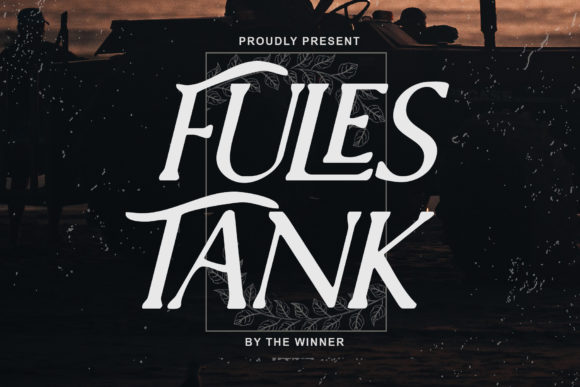
Meet Fules Tank, a stunning serif font family that exudes elegance and sophistication. Its graceful curves and sharp edges create a captivating visual harmony that will elevate your designs to new heights. As a top choice among resume fonts for business professionals, Fules Tank empowers you to make a striking first impression that leaves a lasting impact.
With Fules Tank, your words carry more weight and your messages shine brighter. Its carefully crafted letterforms project an air of authority and professionalism, making it the perfect choice for resumes, business cards, and other corporate materials. Impeccably designed to enhance readability, Fules Tank ensures your content is effortlessly comprehended, leaving no room for ambiguity.
Unleash your creativity and let Fules Tank transform your designs into masterpieces. Its versatility knows no bounds, adapting seamlessly to branding, product packaging, invitations, and a myriad of other applications. Whether you're creating captivating posters, eye-catching logos, or simply adding a touch of sophistication to your social media posts, Fules Tank is your trusted companion, ready to elevate your visual creations.
But Fules Tank is more than just a font; it's an investment in your success. By choosing Fules Tank, you're choosing to stand out from the crowd, to make a statement, and to leave an indelible mark on your audience. Its timeless beauty and unwavering quality ensure that your designs will remain relevant and captivating for years to come.
As a creation of The1stWinner, a renowned font designer with an unwavering commitment to excellence, Fules Tank embodies the highest standards of craftsmanship and innovation. Each letterform has been meticulously designed to ensure perfect harmony and balance, resulting in a font that is both aesthetically pleasing and highly functional.
Embrace the power of Fules Tank and embark on a creative journey like no other. Let its timeless elegance captivate your audience, leaving them utterly spellbound. Download Fules Tank today and unlock the gateway to design excellence.